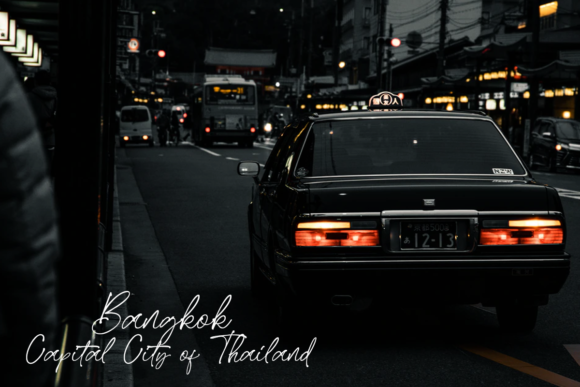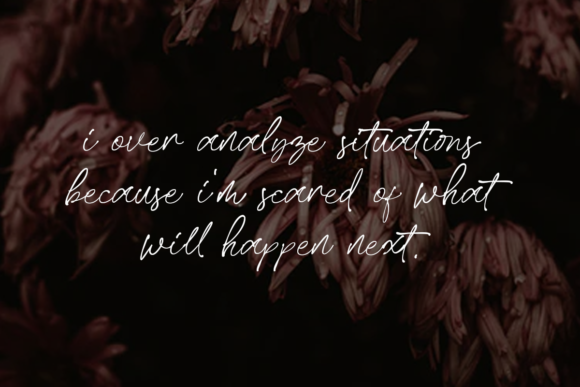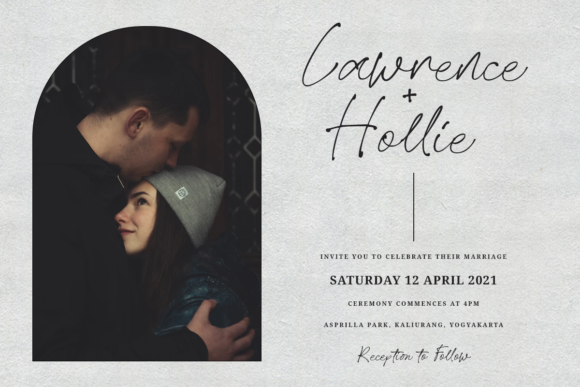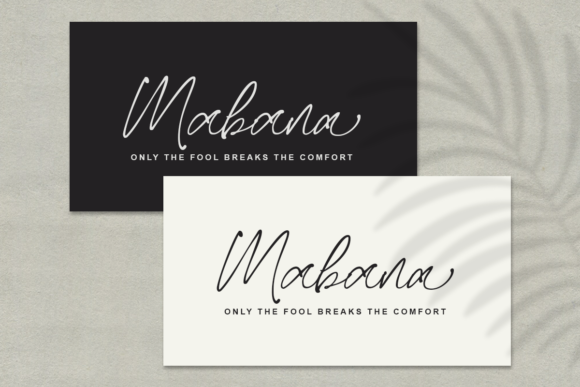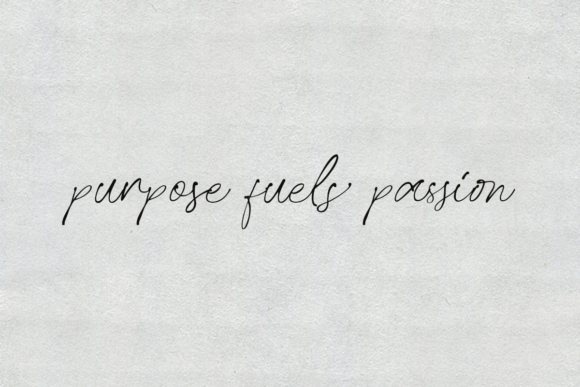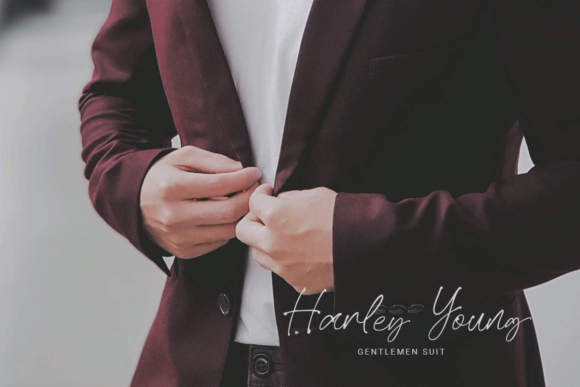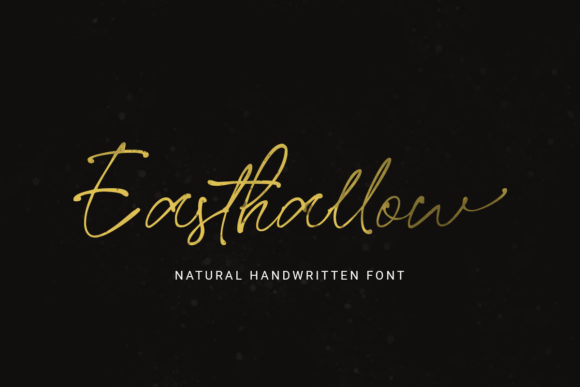
Easthallow Font: Elevate Your Design with Elegance and Sophistication
In the world of typography, fonts play a crucial role in conveying the tone and personality of a design. For designers and crafters seeking to add a touch of elegance and sophistication to their work, the Easthallow font is an excellent choice. This thin and elegant handwritten font is designed to give your designs a natural and refined look, making it perfect for a variety of applications.
The Characteristics of Easthallow Font
Easthallow is a carefully crafted font that boasts a range of characteristics that set it apart from other fonts. Its thin and elegant strokes give it a delicate appearance, while its handwritten nature adds a touch of warmth and personality to your designs. The font’s natural look and feel make it an excellent choice for designers seeking to create a sense of authenticity and organic charm.
Easthallow’s versatility makes it an excellent choice for a range of design applications. Some of the most popular uses for this font include:
- Signature Logos: The elegant and refined nature of Easthallow makes it perfect for signature logos that require a touch of sophistication.
- Wedding Invitations: The font’s natural and organic look makes it an excellent choice for wedding invitations, adding a touch of romance and whimsy to your designs.
- Branding: Easthallow’s unique and elegant appearance makes it an excellent choice for branding applications, helping to establish a strong and recognizable identity for your clients or business.
- And More: In addition to these applications, Easthallow can also be used for a range of other design projects, including stationery, packaging, and digital graphics.
Why Choose Easthallow Font?
With so many fonts available, it’s essential to choose a font that meets your design needs and enhances your work. Here are just a few reasons why Easthallow font stands out:
- Elegant and Refined: Easthallow’s thin and elegant strokes give your designs a sophisticated and refined look.
- Natural and Organic: The font’s handwritten nature adds a touch of warmth and authenticity to your designs.
- Versatile: Easthallow can be used for a range of design applications, from signature logos to wedding invitations and branding.
- Easy to Read: The font’s clear and legible design makes it easy to read, even at small sizes.
Tips for Using Easthallow Font Effectively
To get the most out of Easthallow font, here are a few tips to keep in mind:
- Pair with Bold Fonts: Easthallow’s delicate nature makes it an excellent choice for pairing with bold fonts, creating a striking contrast that adds visual interest to your designs.
- Use in Headings and Titles: The font’s elegant and refined appearance makes it perfect for use in headings and titles, adding a touch of sophistication to your designs.
- Experiment with Colors: Easthallow’s natural and organic look makes it an excellent choice for use with a range of colors, from soft pastels to rich jewel tones.
| Font Name | Easthallow Font |
| Author | Rillatype |
In conclusion, Easthallow font is an excellent choice for designers and crafters seeking to add a touch of elegance and sophistication to their work. Its thin and elegant strokes, natural and organic look, and versatility make it perfect for a range of design applications. Whether you’re creating signature logos, wedding invitations, or branding materials, Easthallow font is sure to elevate your designs and leave a lasting impression.